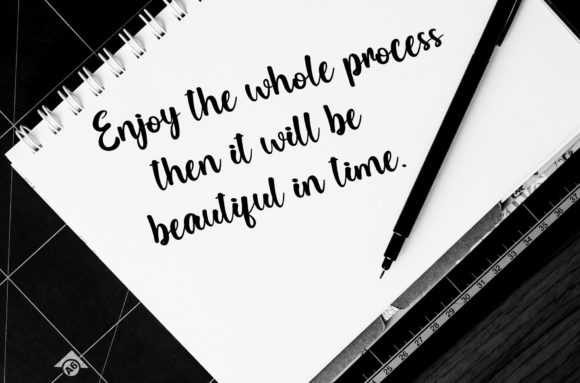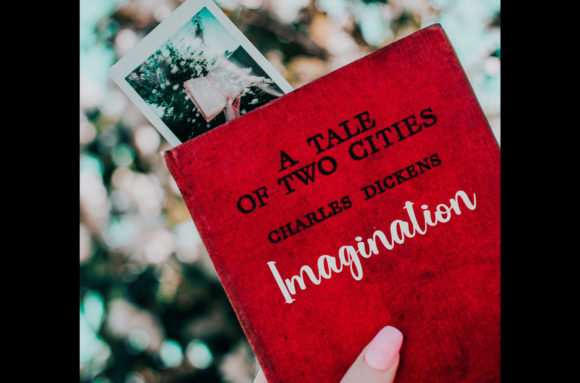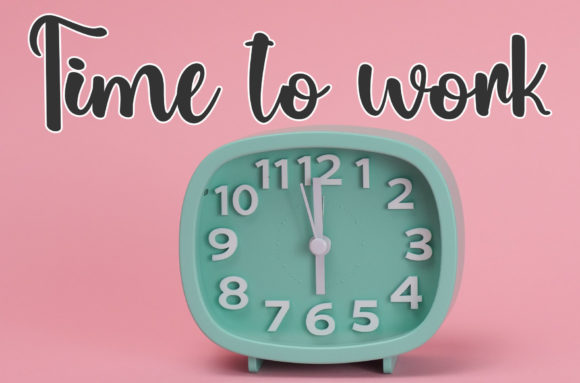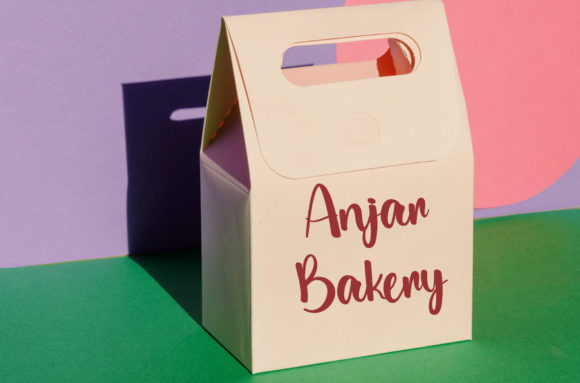
Shamanta Font
About Shamanta Font
“Shamanta” is an exquisite handwritten font that stands out as a masterfully designed typeface, destined to become a true favorite among designers and creatives. This font seamlessly blends classy calligraphic influences with a contemporary and fresh feel, creating a harmonious balance that captivates and elevates design projects. Fall in love with the sophistication and style it brings, and watch as your creative endeavors reach new heights.
The font’s calligraphic influences contribute to its timeless elegance, adding a touch of class and refinement to any design. Whether used for formal invitations, luxury branding, or high-end product packaging, “Shamanta” effortlessly exudes a sense of sophistication.
Despite its classical roots, “Shamanta” manages to feel contemporary and fresh, making it versatile for a wide range of modern design applications. It embraces the essence of the present while honoring the timeless beauty of traditional calligraphy.
The careful design of “Shamanta” ensures that it remains a versatile tool, suitable for various projects that demand a high level of aesthetic appeal. From elegant logos to refined stationery, this font becomes a key element in bringing projects to the highest levels of visual excellence.
As you fall in love with the distinct charm of “Shamanta,” you’ll find that it becomes more than just a font; it becomes an integral part of your design journey. Its ability to infuse projects with sophistication and freshness makes it a go-to choice for those aiming to create visually stunning and memorable experiences.
In summary, “Shamanta” is an exquisite handwritten font that combines classic calligraphic influences with a contemporary and fresh vibe. Embrace its timeless elegance, and let it elevate your projects to new levels of style and sophistication. Whether you’re working on invitations, branding, or any creative endeavor, “Shamanta” is sure to become a cherished favorite in your design toolkit.